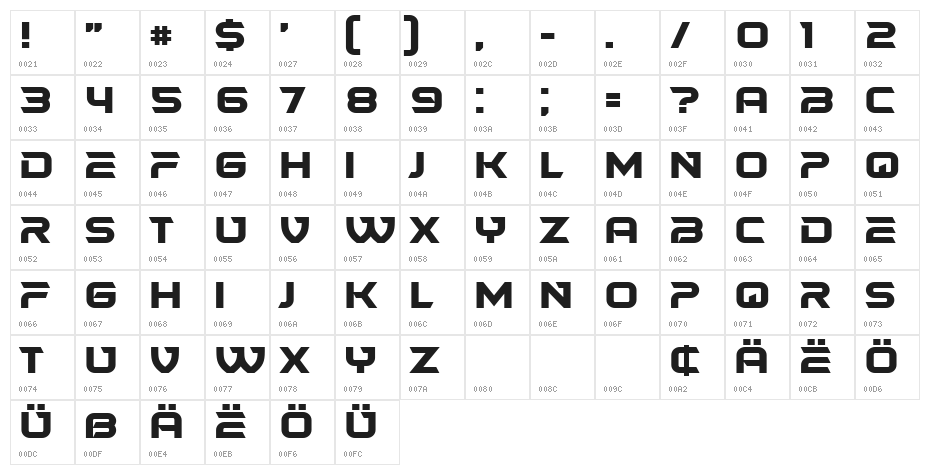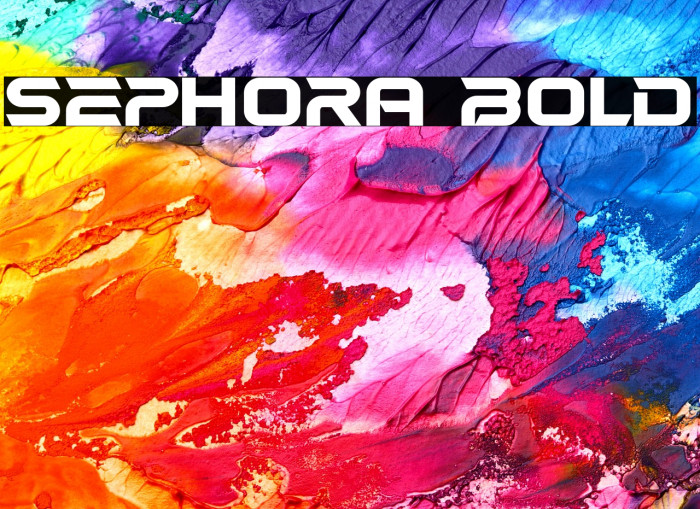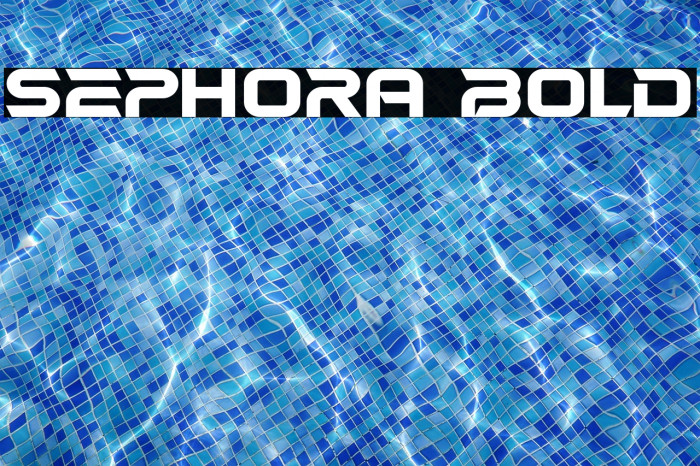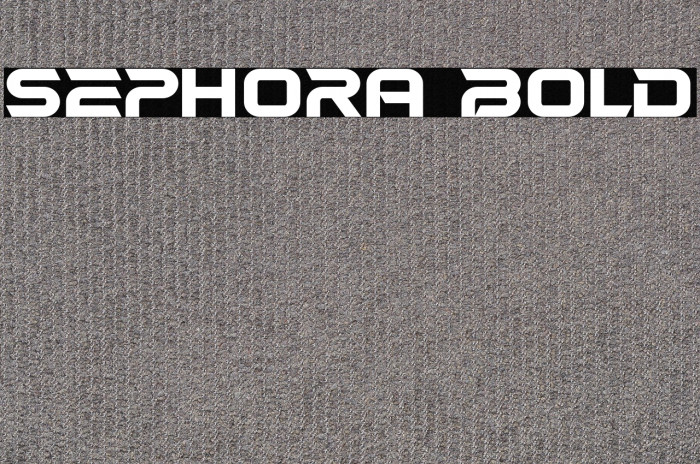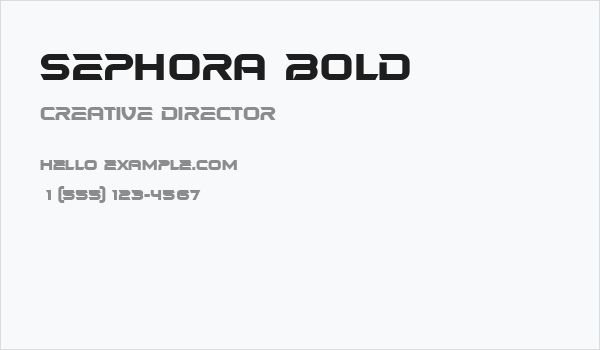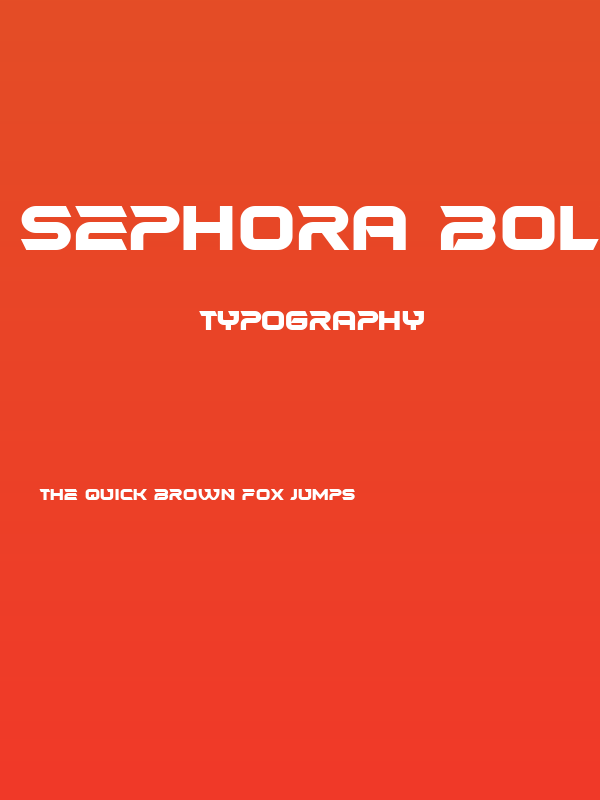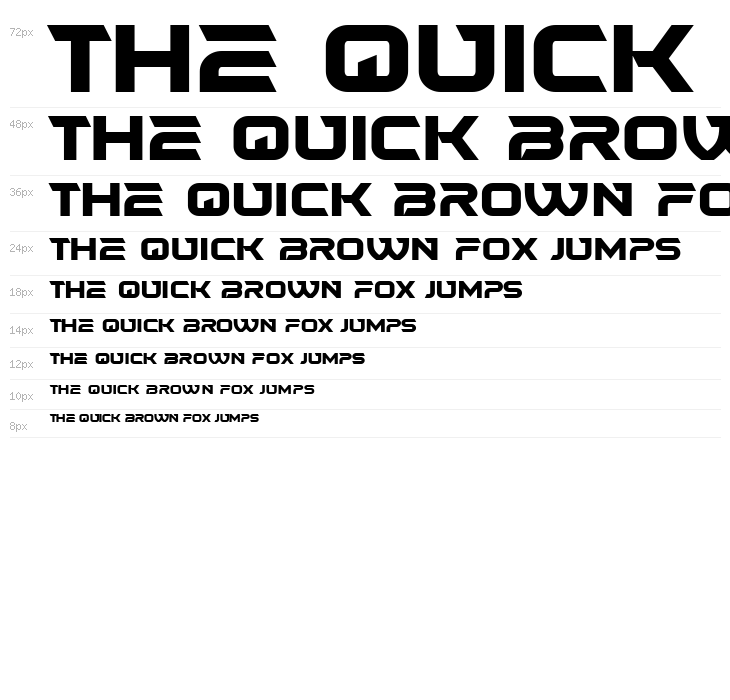
Sephora Bold Font
This font features a bold, geometric style with a futuristic and modern aesthetic. The characters are constructed with sharp angles and straight lines, giving it a strong and assertive appearance. The uppercase letters are uniform in height and width, creating a cohesive look across the alphabet. The numbers and special characters maintain the same boldness and angular design, ensuring consistency throughout. This font is ideal for making a statement, with its striking presence and unique character shapes.
| Proposed Projects | Ideal for branding, logos, headlines, and posters where a strong, modern look is desired. |